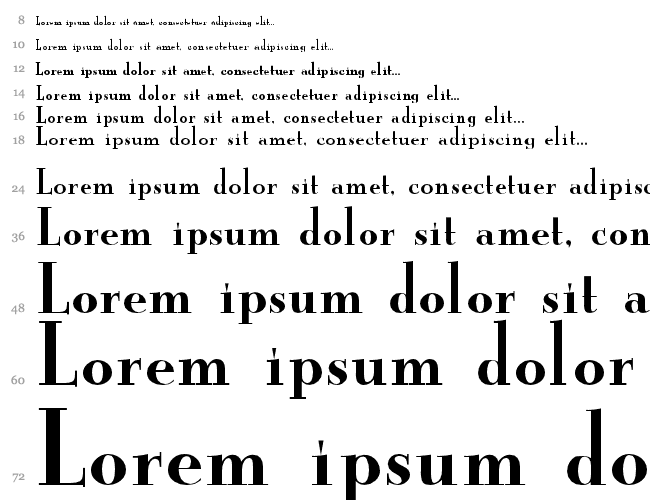
What Font Does The New Yorker Use
What Font Does The New Yorker Use - Web the new yorker uses a unique cover font called “new yorker type.”. Designed by rea irvin in 1925, it features.
Web the new yorker uses a unique cover font called “new yorker type.”. Designed by rea irvin in 1925, it features.
Designed by rea irvin in 1925, it features. Web the new yorker uses a unique cover font called “new yorker type.”.
Web the new yorker uses a unique cover font called “new yorker type.”. Designed by rea irvin in 1925, it features.
Designed by rea irvin in 1925, it features. Web the new yorker uses a unique cover font called “new yorker type.”.
Web The New Yorker Uses A Unique Cover Font Called “New Yorker Type.”.
Designed by rea irvin in 1925, it features.